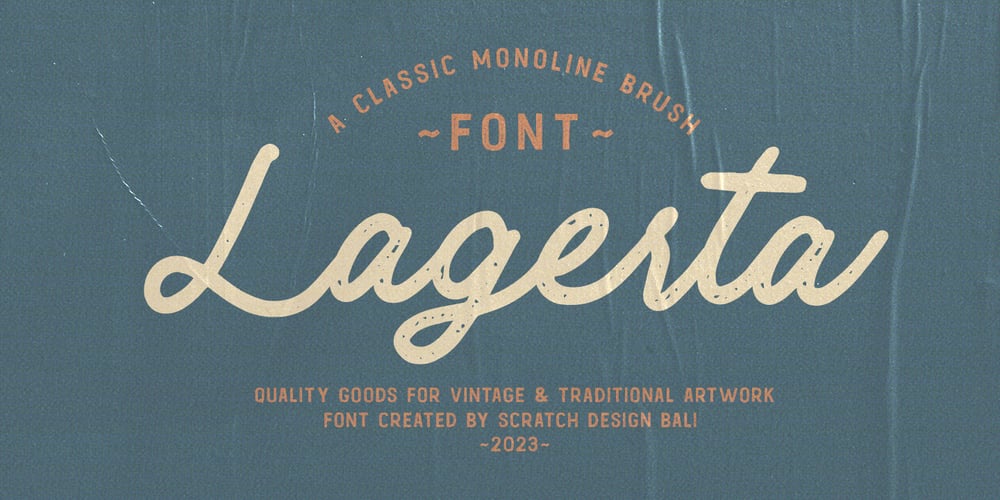
Lagerta
Lagerta font
Lagerta Font Family was designed by Gitayogi Irhandi and published by Scratch Design. Lagerta contains 1 styles and family package options. Introducing Lagerta it’s bold monoline script with vintage texture inside the shape. This font comes with a retro style for a retro design, Lagerta a combine from modern script touch with some little roughness inside the shape to make this font look more like an unfinished old style. Lagerta will be perfect for designs such as logotypes, headlines, branding, signage, clothing, label, packaging and etc.Features: Ligatures Numerals & Punctuation Accented characters Multiple Languages SupportedHOW TO ACCESS ALTERNATE CHARACTERS Open glyphs panel: In Adobe Photoshop go to Window – glyphs In Adobe Illustrator go to Type – glyphs